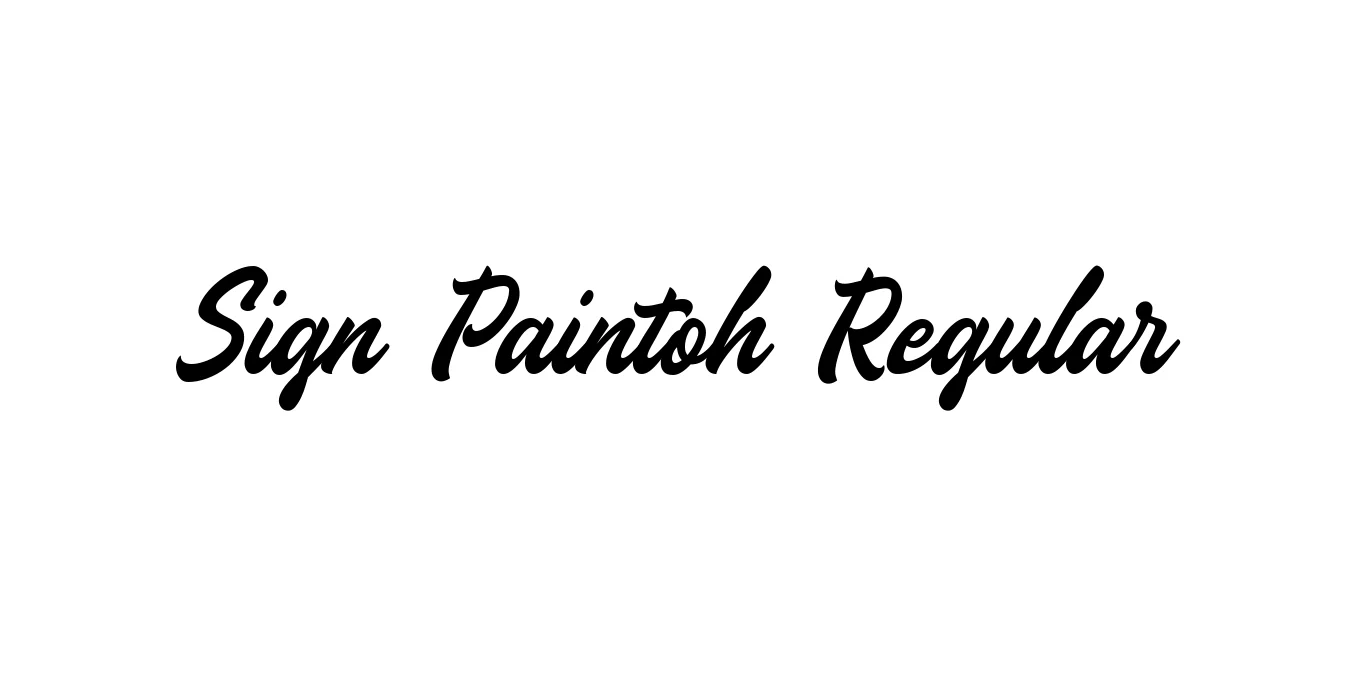
Sign Paintoh Regular
Designed by Maulana Creative
Sign Paintoh Regular is a meticulously designed script typeface that pays homage to the classic art of hand-painted sign lettering. Inspired by the bold, fluid strokes of traditional sign writers, this font captures the authentic texture and rhythmic flow of a professional brush. The design features thick, expressive lines and a natural variation in stroke width, making it an ideal choice for projects that require a human, artisanal touch rather than a sterile digital appearance.
Technical precision meets creative flair in this font, as every character is balanced to ensure smooth transitions and high legibility. Sign Paintoh Regular is particularly effective in high-contrast environments, where its vintage aesthetic can truly shine. Whether you are aiming for a mid-century retro look or a contemporary handcrafted vibe, this typeface provides the versatility needed to anchor diverse design compositions with confidence and style.
Sign Paintoh Regular Best Uses
Ideal for creating unique, high-impact logos and identity systems.
Perfect for storefront displays, cafe menus, and promotional banners.
Great for artisanal product labels that need a personal, handcrafted feel.
Works excellently for t-shirt graphics and vintage-style merchandise.